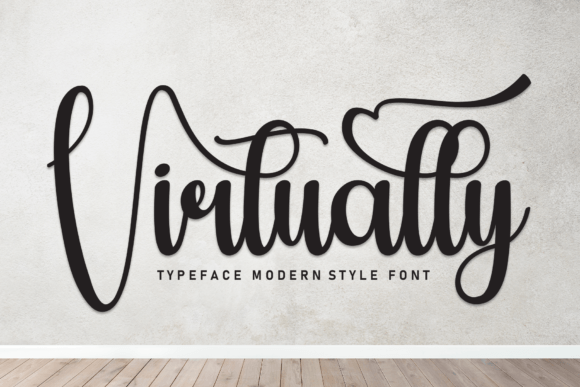
Dive into the whimsical world of Virtually, a captivating script font that captures the essence of sweet and friendly charm. Its playful strokes and endearing personality make it the perfect choice for adding a touch of merriments and cheer to your creative projects.
With its warm, inviting embrace, Virtually invites you to let your imagination run wild. Picture the perfect wedding invitation adorned with this delightful font, spreading joy and love to your guests. Envision personalized cards enhanced with Virtually's charming characters, creating heartfelt connections. Let your designs exude warmth and positive vibes as Virtually transforms ordinary into extraordinary.
Step into a realm of creativity where Virtually becomes your trusty companion. Its versatility shines through whether you're crafting visually engaging posters, adding a personal touch to your branding, or creating products that radiate warmth and happiness. Virtually is not just a font; it's an expression of your unique style, ready to infuse your designs with a dash of magic.
So, dear design enthusiast, embrace the power of Virtually and unlock a world of enchanting possibilities. Let your imagination soar as you weave tales of joy and wonder with this captivating script font. Make your mark in the world of design; let Virtually be your muse, the spark that ignites your creativity.